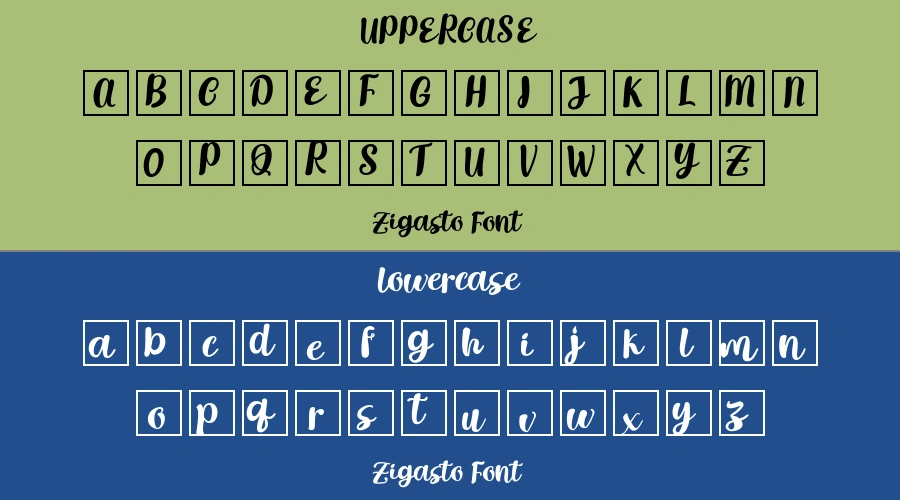
About Zigasto Font
Designed with precision, Zigasto Font merges convex bowls with versatility in every character. This versatility makes it particularly effective for presentation decks, where durability and scholarly value directly impact communication quality. Each letterform demonstrates meticulous craftsmanship.
Technical excellence shines through elements like precise alignment and multiple weights, enhancing typographic versatility. In certification marks settings, Zigasto Font proves its worth through superior overlay performance. The thoughtful execution of counter shape and educational suitability ensures professional results.